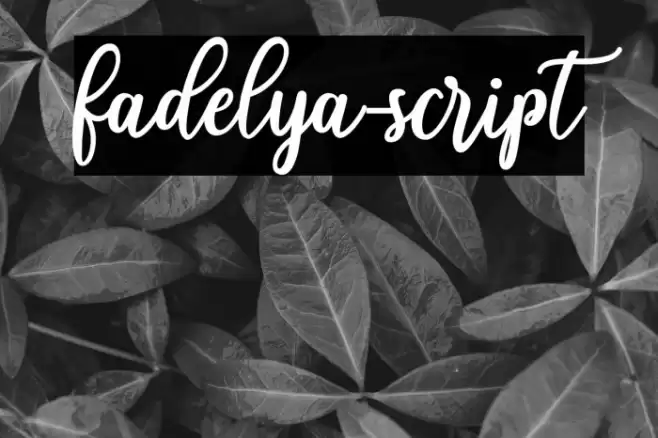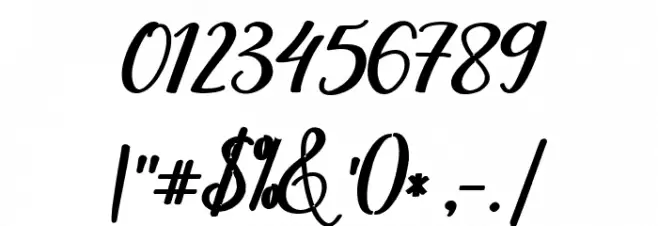
fadelya-script Font
fadelya-script Description
This font exudes a lively and elegant script style, characterized by its fluid and connected letterforms. The uppercase letters are bold and sweeping, with a graceful flow that suggests movement and sophistication. The lowercase letters maintain a consistent rhythm, enhancing readability while preserving the font's decorative nature. Numbers are crafted with the same attention to detail, ensuring they blend seamlessly with the alphabet. Special characters are thoughtfully designed to complement the overall aesthetic, making this font versatile for various creative applications.
A lively and elegant script font with fluid, connected letterforms from Uncategorized fonts.
- Proposed Projects: Ideal for wedding invitations, greeting cards, branding projects, and elegant packaging designs.
- Use Case: Logos, Headlines, Invitations